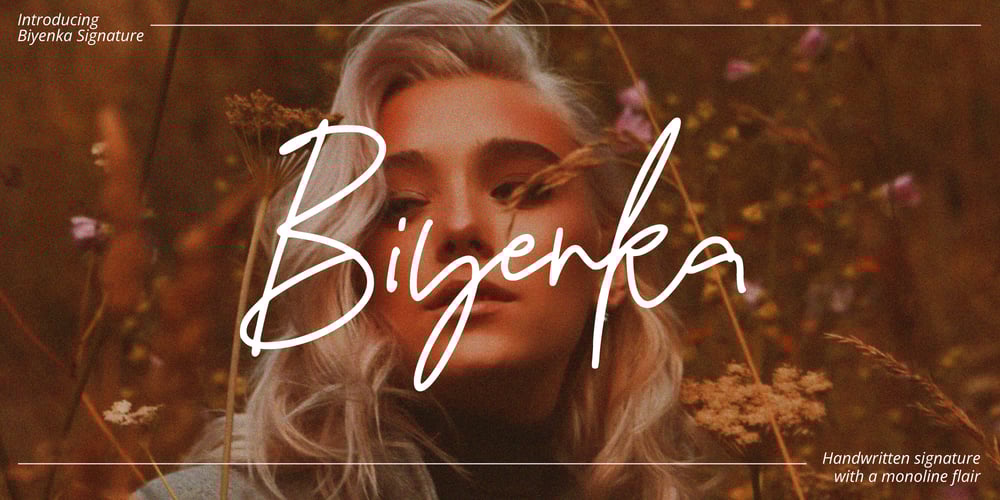
Biyenka Signature
Biyenka Signature font
Biyenka Signature Font Family was designed by Dzulka Elfira and published by Tebaltipis Studio. Biyenka Signature contains 1 styles and family package options. Biyenka Signature with a handmade Signature style, decorative characters and a dancing baseline! So beautiful on invitation like greeting cards, branding materials, business cards, quotes, posters, and more!!